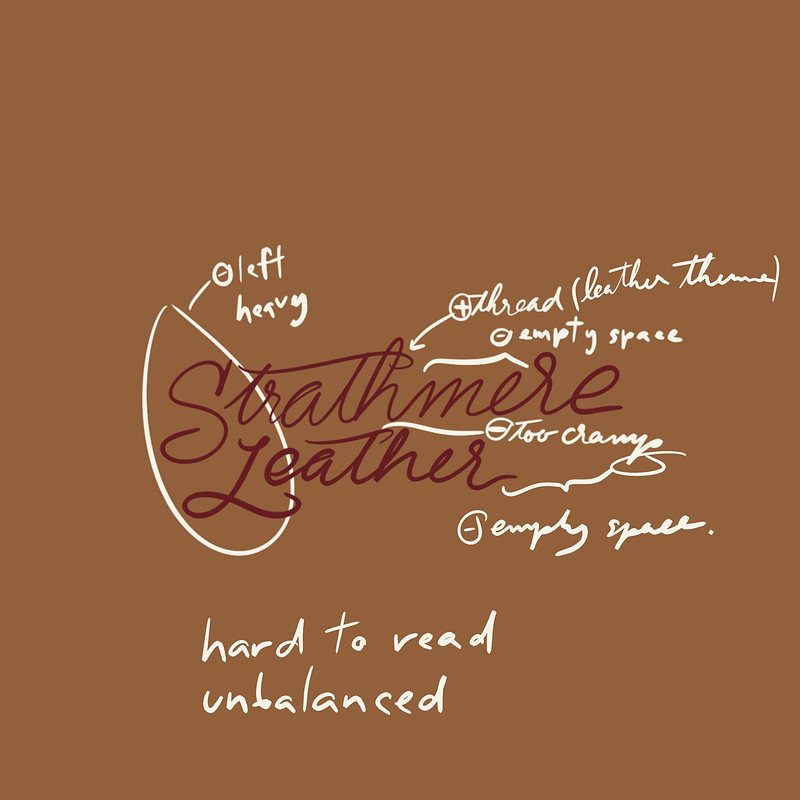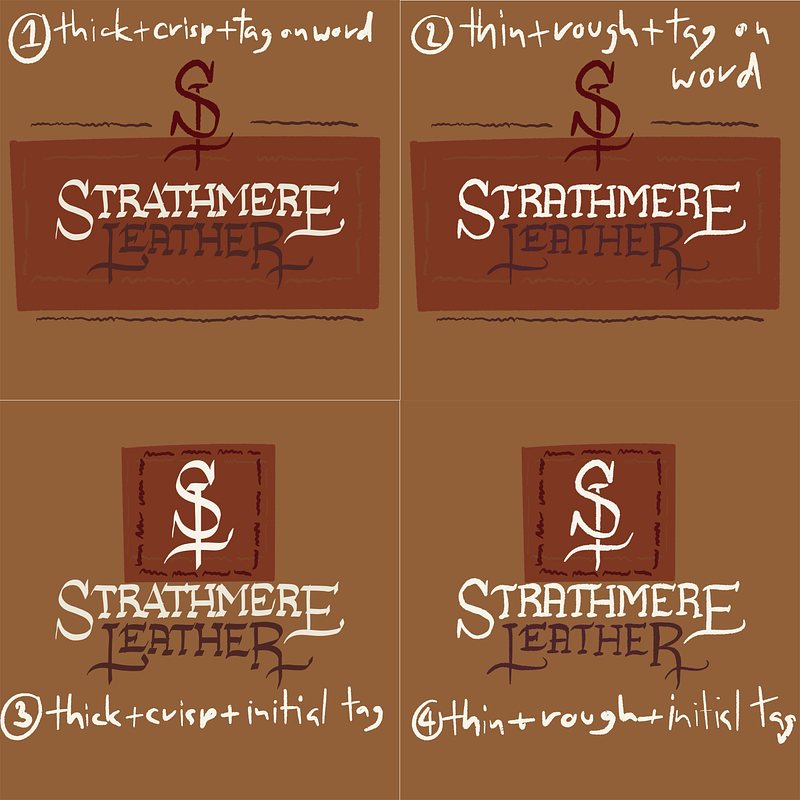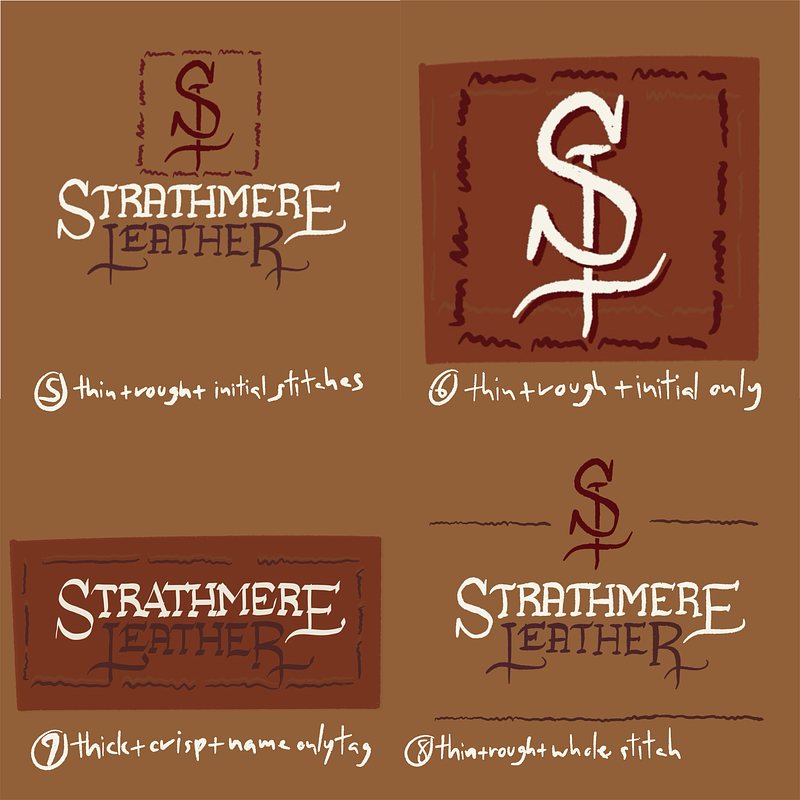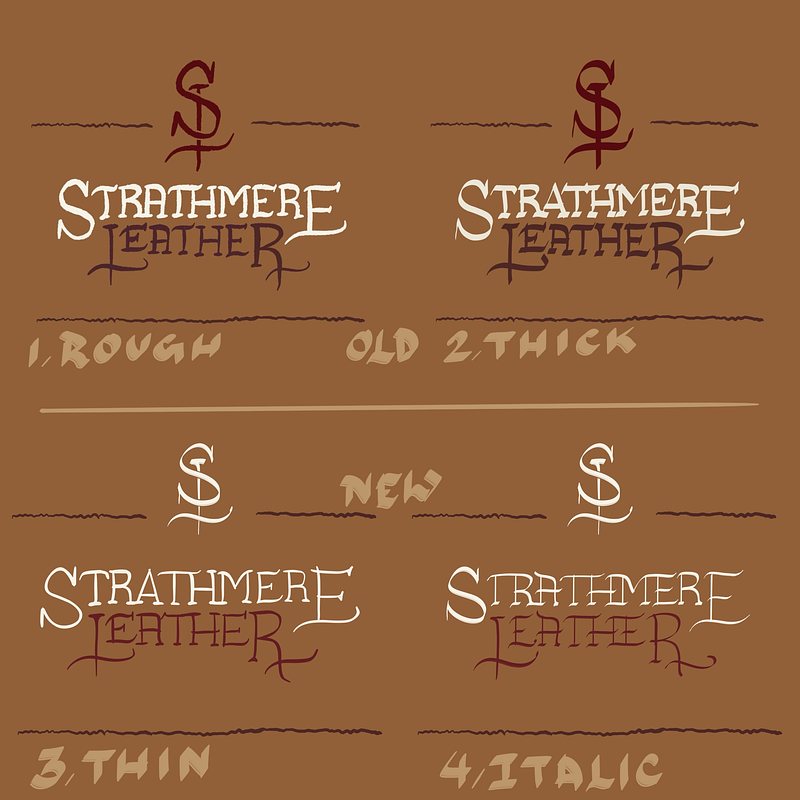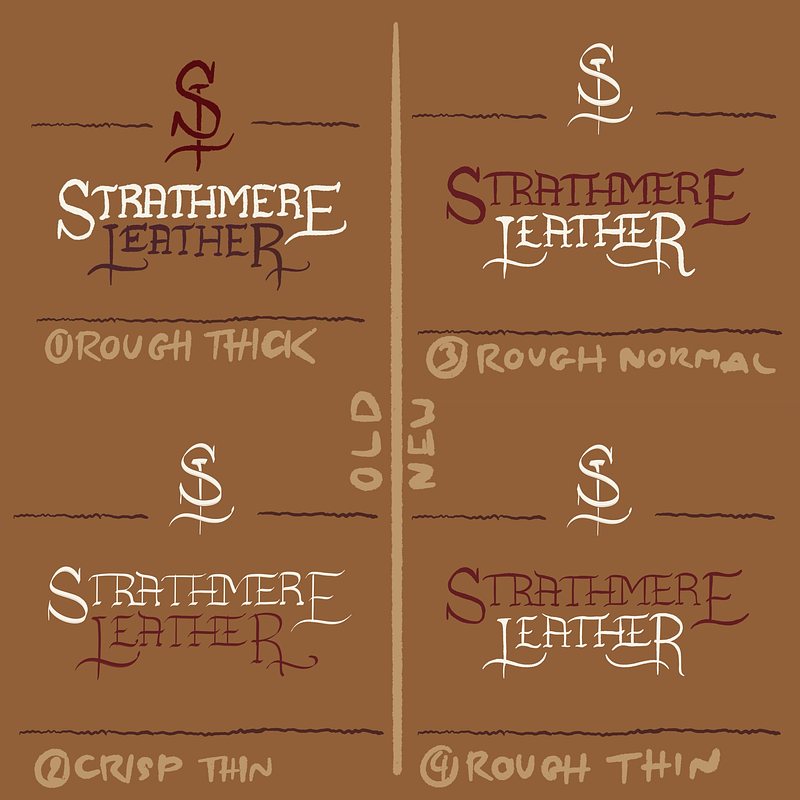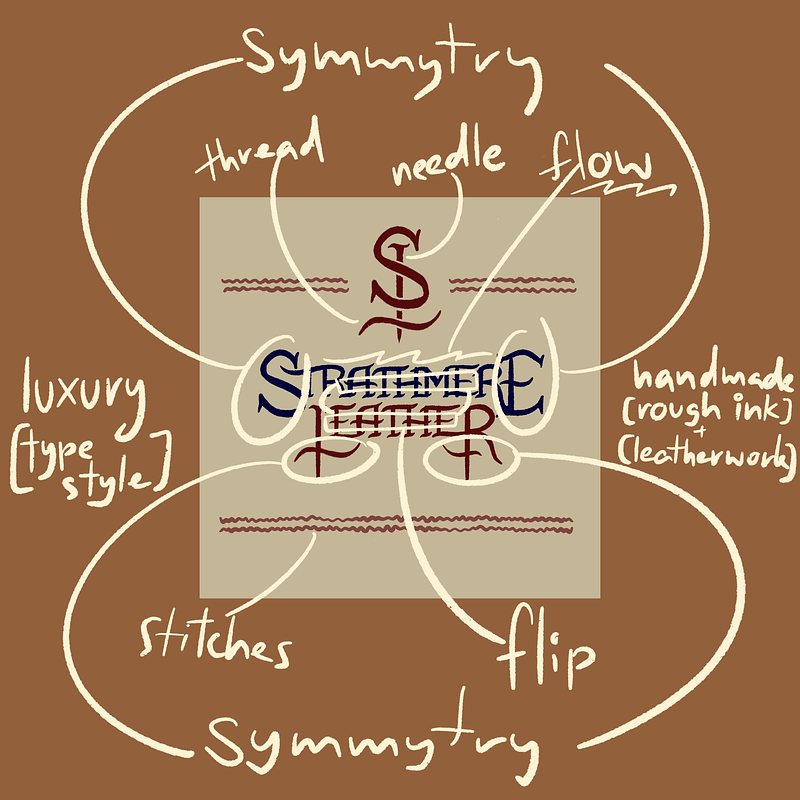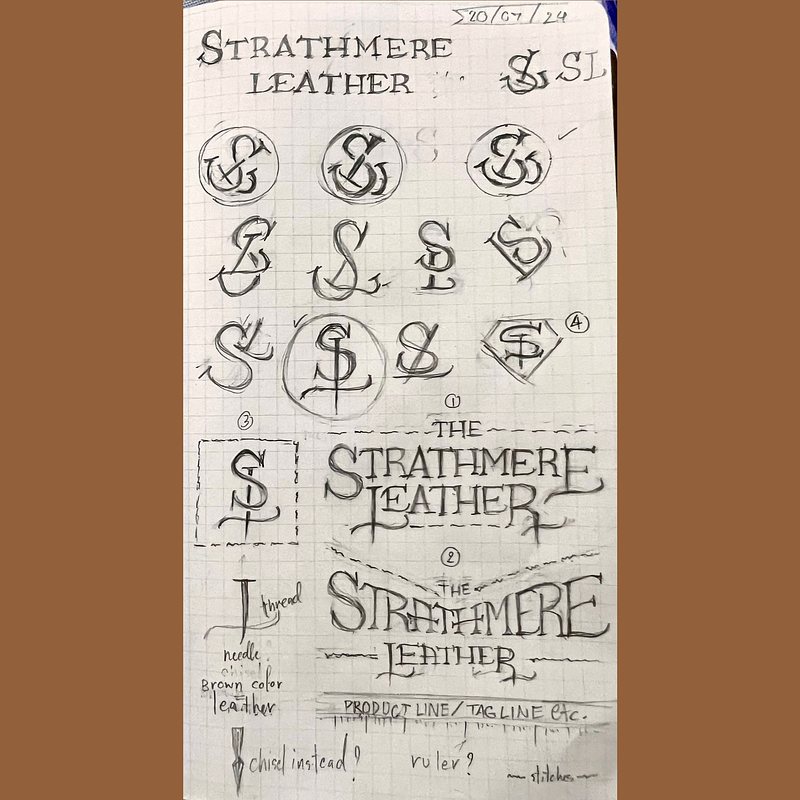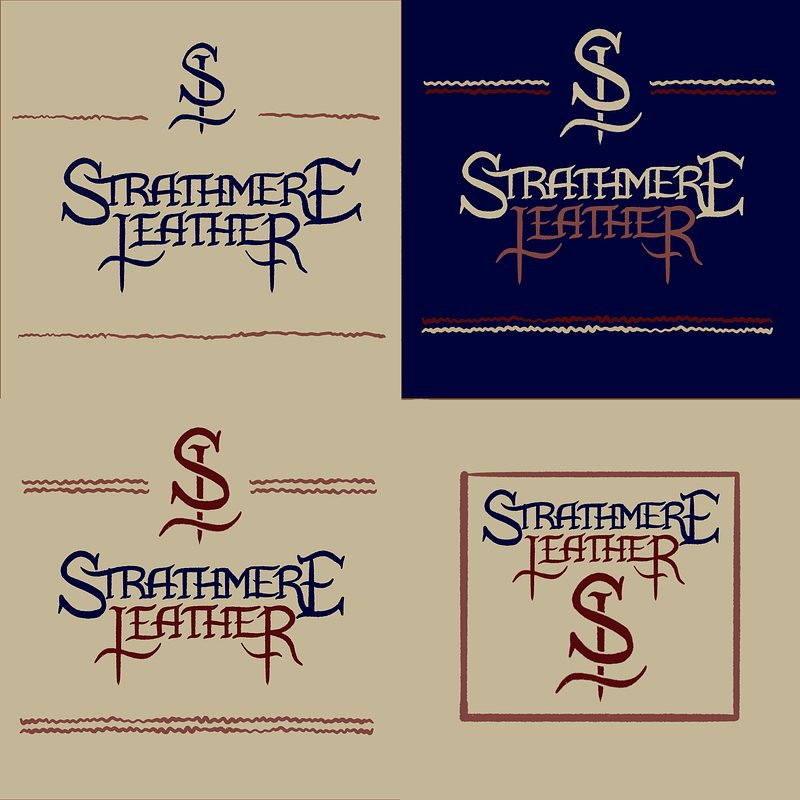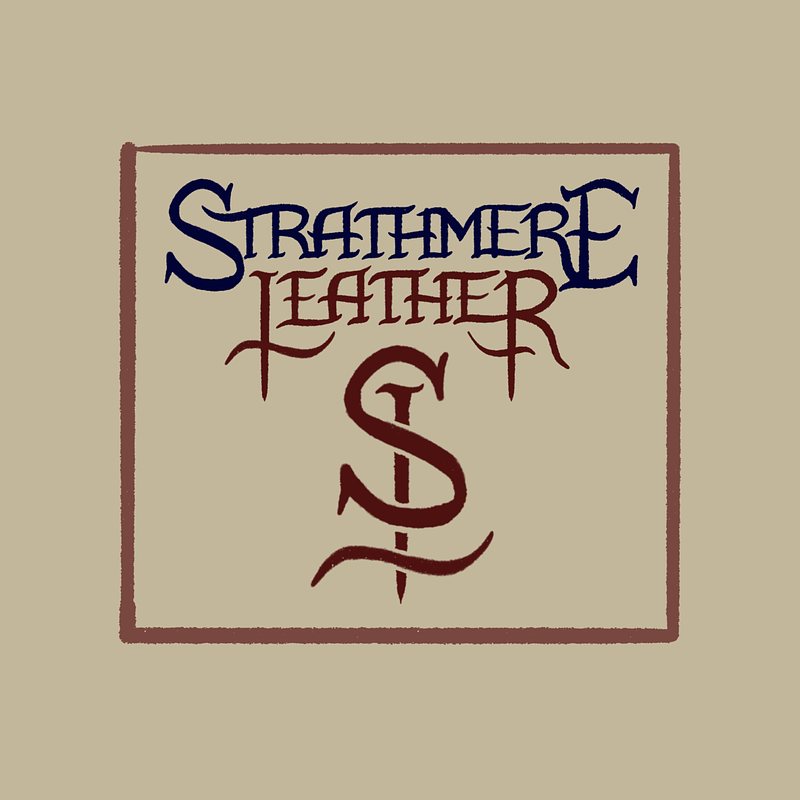
The Commission 00005-Strathmere Leather by Aaron Aiken
Once again commissioned by Aaron, I was tasked with designing a logo to serve as a website header for his brand, "Strathmere Leather." This time, the goal was to create a logo that embodies the entire brand identity, moving beyond the product-specific design of the previous Ocean Front logo. The challenge lies in balancing simplicity with the luxurious feel of handmade leather craftsmanship.
Initial Concepts and Inspirations
Designing the Monogram
I began by exploring the initials, initially aiming for a clever SL monogram. However, I soon realized that simplicity would be more meaningful, appropriate, and effective—especially if the logo were to be used for embossing leather. As I envisioned the logo, thoughts of leather texture, tags, chisels, threads, and needles naturally came to mind. These elements subtly influenced the design.
Crafting the Wordmark
Next, I focused on the wordmark logo. Since it would feature prominently on the website header, it needed to be readable and instantly convey the brand’s vibe without overcomplicating matters.
Images of Western-style leather and cowboys inspired me to consider slab serif typefaces. However, since Strathmere Leather aims for a luxurious feel, I opted for an elegant serif typeface with a rugged appearance instead.
Fortunately, the brand name "Strathmere Leather" consists of many box-shaped letters and repeating characters, making it easier to implement a rugged aesthetic without creating an entirely new typeface system. Different alphabets would have required rules for each stroke, akin to developing a new font!
Finalizing the Design
Presenting Concepts
I shared various logo concepts with Aaron—ranging from simple to decorative—incorporating rough ink and crisp flat brush designs in different placements.
Aaron preferred concept number 8, featuring a simple style with rugged lines but also requested a more sophisticated approach.
Refining the Details
Initially, I considered a script style for the lettering; however, it disrupted the flow of the name. Therefore, I opted for thinner lines as an alternative for him to choose from.
To ensure this aligned with his vision, I created additional drafts with varying line thicknesses while maintaining the same brush texture. I explained that thicker lines would enhance the rugged look but diminish the luxurious feel.
Ultimately, Aaron preferred the rougher, thicker lines from my initial proposal.
Thus, the real work began…
Harmonizing, Hierarchizing, and Balancing
When crafting the lettering, three key aspects emerged: harmony, hierarchy, and balance.
Harmony
Harmony stems from consistency within the typeface system; each letter should adhere to shared rules and elements as much as possible. I meticulously drew each letter and reused lines to maintain consistency.
Hierarchy
Typically, an industry name might be subordinated to the main brand name in branding situations. However, for Strathmere Leather, both components required equal emphasis to avoid confusion about whether the brand related to leather products or the city of Strathmere.
Balance
To emphasize elegance, the logo needed to be as symmetrical as possible to ensure it appeared carefully crafted and designed. I even mirrored the "S" to form the "E," making them essentially identical in shape while maintaining their distinctiveness. To add dynamism, I flipped the crossbar direction of "Strathmere Leather," creating a wavy flow in an opposing direction.
Choosing Colors
After finalizing the lettering, selecting colors became the next critical step. I incorporated some of Aaron's existing colors while blending them with my own choices to achieve an earthy tone reminiscent of leather. These colors provided sufficient contrast for accessibility—essential for the website header—and included an alternative scheme for a dark mode version of the site.
Conclusion
And that's it! The final Strathmere Leather logo combines both a logomark and a wordmark, embodying the brand's luxurious yet rugged essence of handmade leatherwork.